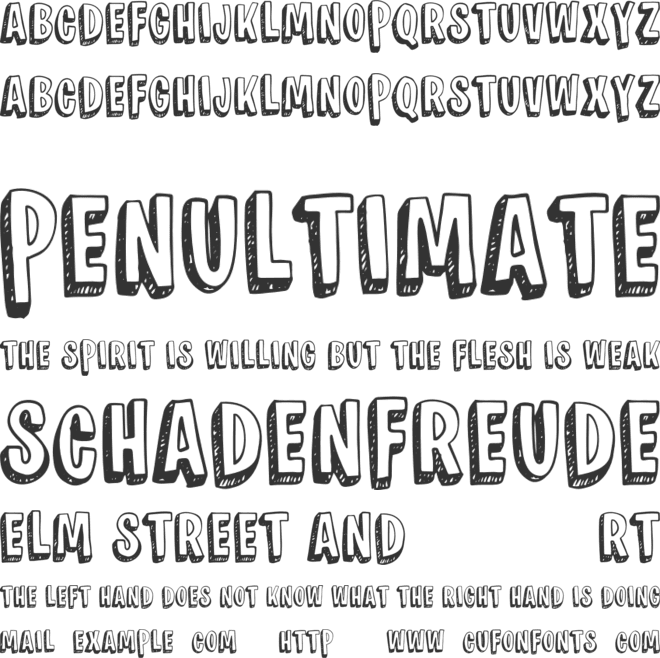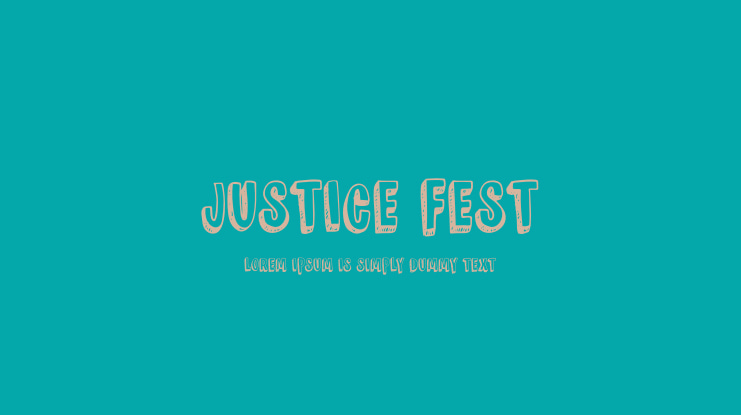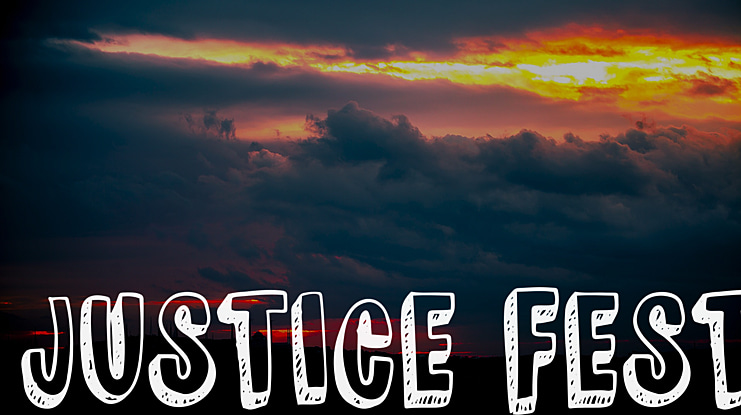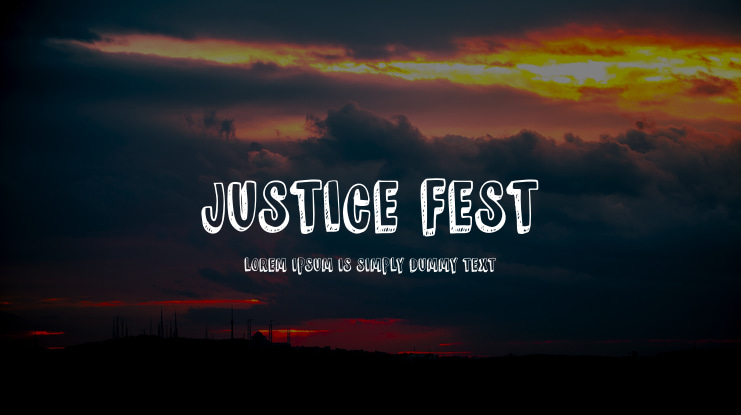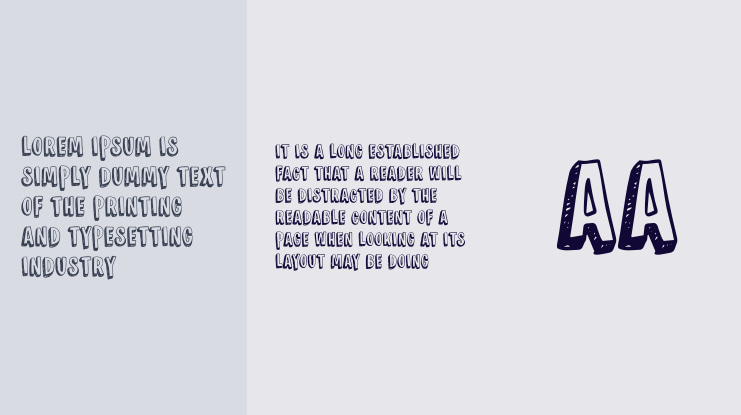
JUSTICE FEST Font Family
Justice Fest is a cool and street styled, pencil-like display font. No matter the topic, this font will be an incredible asset to your fonts’ library, as it has the potential to elevate any creation.